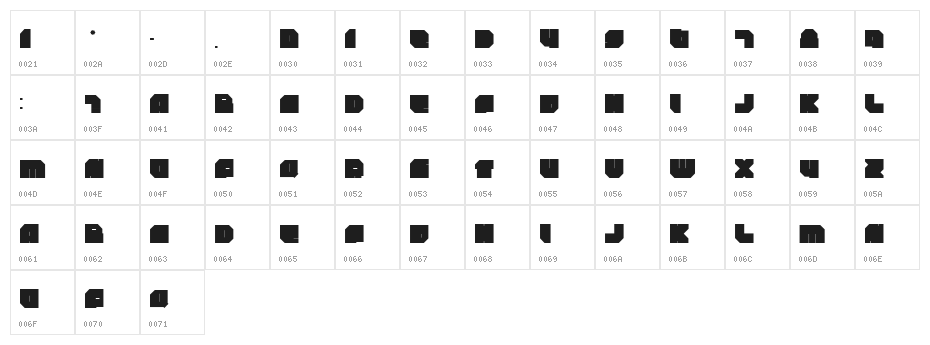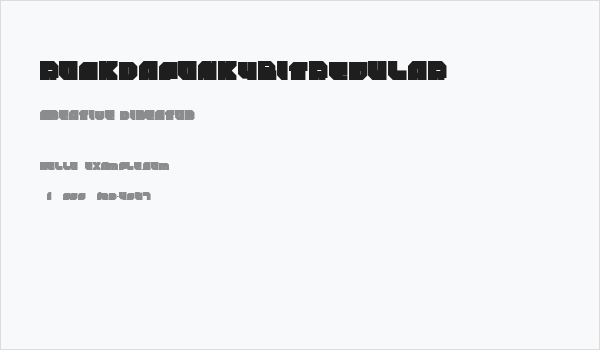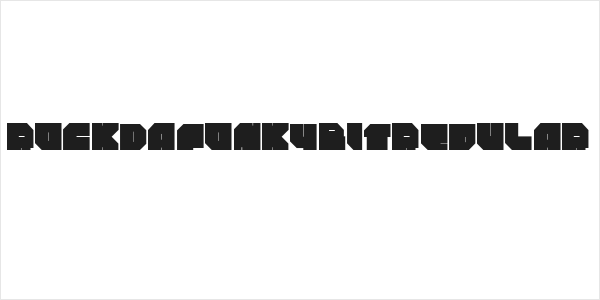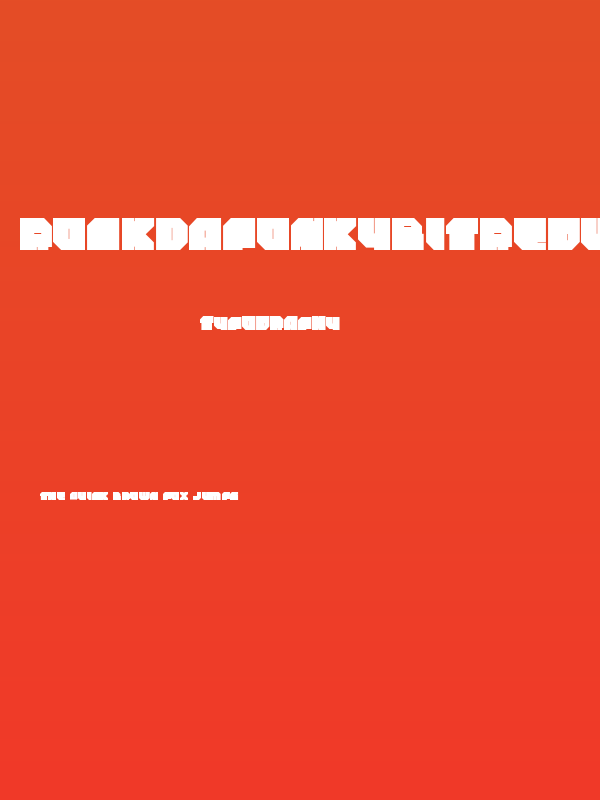
rockdafonkybitRegular Font
rockdafonkybitRegular Description
This font features a bold, geometric design with a distinctly modern and edgy appearance. The characters are constructed with sharp angles and straight lines, creating a blocky and robust look. The uppercase and lowercase letters maintain a consistent style, with minimal differentiation in height, contributing to a uniform and cohesive aesthetic. The numerals and special characters follow the same angular and solid design, ensuring visual harmony across all elements. This font's striking appearance makes it suitable for projects that require a strong visual impact.
| Proposed Projects | Ideal for posters, album covers, branding, and any project needing a bold, impactful typeface. |